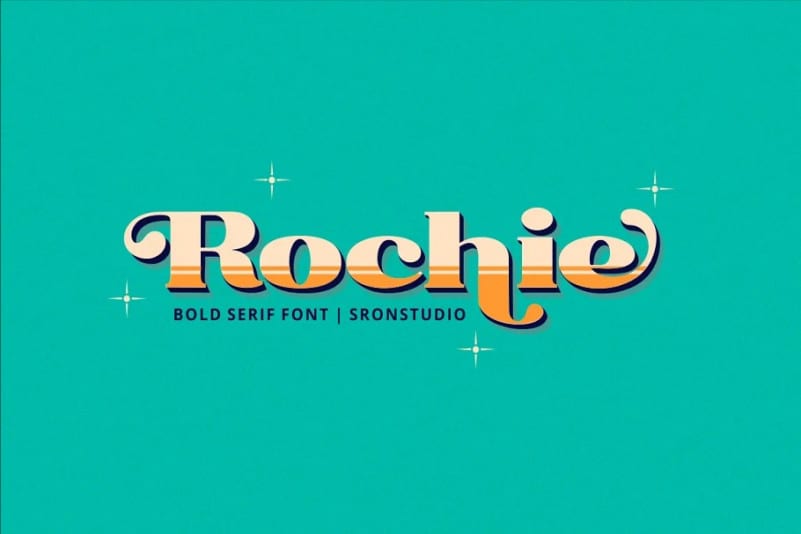
Rochie Font
Rochie Serif Font is a bold serif vintage typeface that was made to provide more choices for your designs. This font perfect for branding, invitation, stationery, wedding designs, social media posts, advertisements, product packaging, product designs, label, photography, watermark, special events, and more.